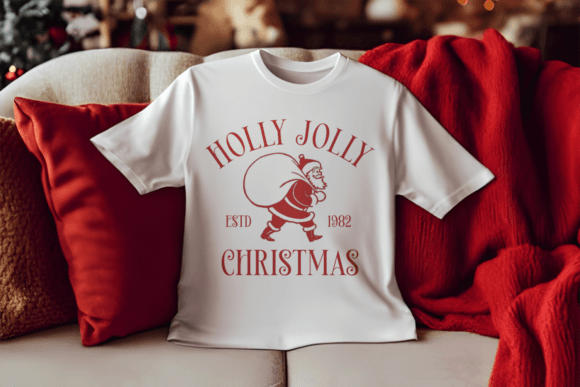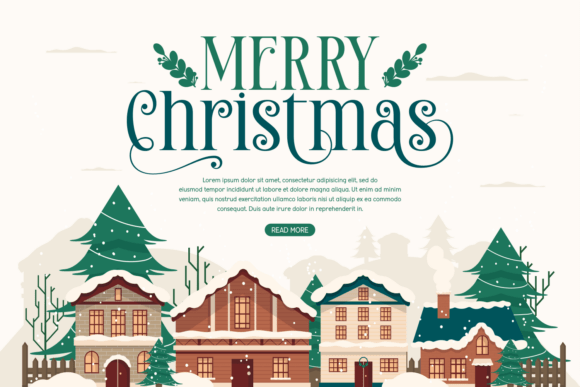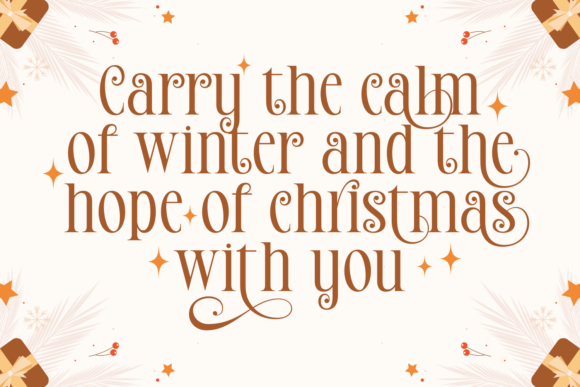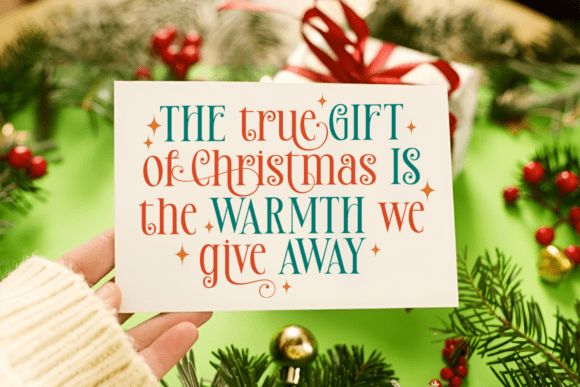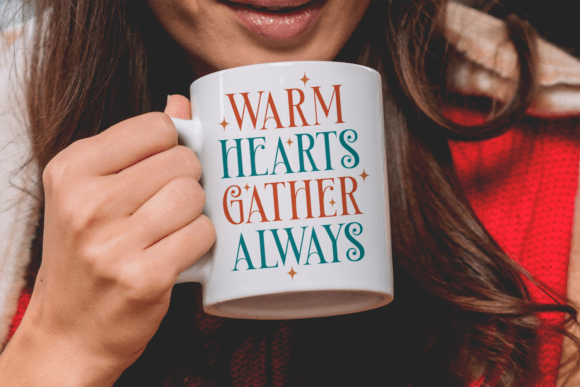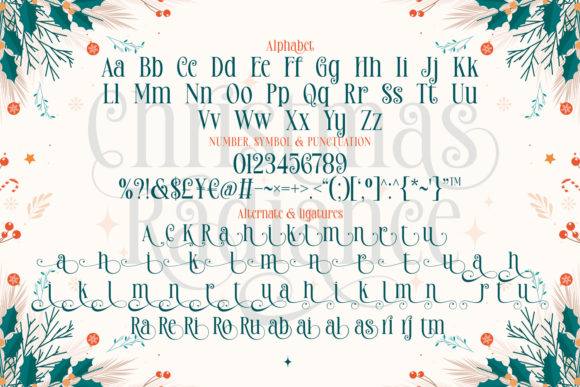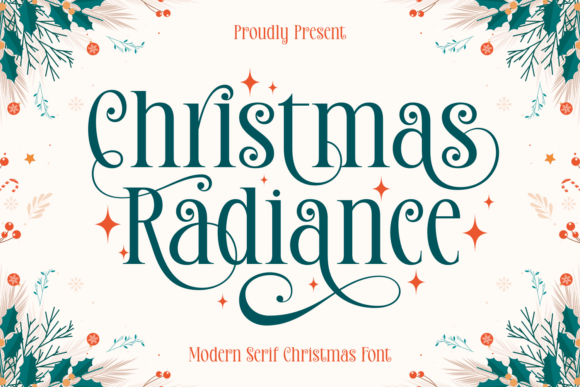
Introducing Christmas Radiance Font: Elevate Your Holiday Designs with Elegance and Cheer
The holiday season is upon us, and with it comes the desire to create captivating and festive designs that embody the spirit of Christmas. Whether you’re a designer, crafter, or simply someone who loves the magic of the season, having the right typography can make all the difference. That’s where Christmas Radiance comes in—a modern serif Christmas font designed to infuse your projects with elegance, charm, and a warm festive glow.
A Modern Twist on Classic Christmas Elegance
Christmas Radiance is more than just a font; it’s an experience. Crafted with precision and a deep understanding of what makes the holiday season special, this font combines the best of traditional serif elements with a fresh, modern approach. The result is a typeface that feels both nostalgic and contemporary, perfect for those who want to stand out in a crowded design landscape.
One of the standout features of Christmas Radiance is its graceful swashes and stylish curves. These elements add a fluid, dynamic quality to your text, making it perfect for headlines, titles, and any design where you want to make a statement. The classic serif details ensure that the font remains grounded and sophisticated, preventing it from feeling too whimsical or over-the-top.
Perfect for a Wide Range of Holiday Projects
Christmas Radiance is incredibly versatile, making it suitable for a wide array of design projects. Here are some ideas to get you started:
- Holiday Cards and Invitations: Create stunning Christmas cards, invitations, and save-the-date announcements that set the tone for your holiday celebrations.
- Seasonal Branding: Elevate your holiday branding with a font that exudes warmth and sophistication. Use Christmas Radiance for logos, packaging, and promotional materials to create a cohesive and festive look.
- Decorative Quotes and Graphics: Add a touch of elegance to your holiday quotes and graphics. Christmas Radiance’s refined letterforms and ornamental accents make it perfect for creating shareable social media content.
- Packaging: Whether you’re designing labels for holiday gifts, cookies, or other seasonal products, Christmas Radiance can help your packaging stand out.
- Social Media Posts: Make your holiday social media posts shine with a font that captures the essence of the season. From Facebook to Instagram, Twitter to Pinterest, Christmas Radiance will ensure your content looks festive and refined.
- Gift Tags and Labels: Add a personal touch to your gifts with beautifully designed tags and labels. Christmas Radiance’s intricate details and elegant style make it perfect for this purpose.
Why Choose Christmas Radiance?
So, what sets Christmas Radiance apart from other holiday fonts? Here are a few reasons why designers and crafters are falling in love with this beautiful typeface:
- Luxurious and Joyful Feel: Christmas Radiance strikes the perfect balance between sophistication and festive cheer. Its sparkling ornamental accents and refined letterforms add a touch of luxury to any design.
- Easy to Use: Despite its intricate details, Christmas Radiance is surprisingly easy to use. Whether you’re a seasoned designer or a beginner, you’ll find that this font integrates seamlessly into your workflow.
- Versatile: From formal to casual, Christmas Radiance adapts to any design style. Use it for everything from high-end branding to DIY craft projects.
Tips for Using Christmas Radiance
To get the most out of Christmas Radiance, here are a few tips:
- Experiment with Swashes: Don’t be afraid to play around with the swashes and flourishes that come with Christmas Radiance. They can add a unique touch to your designs and help you create something truly one-of-a-kind.
- Mix and Match: Combine Christmas Radiance with other fonts to create interesting contrasts. For example, pair it with a simple sans serif for a headline or use it alongside a script font for added visual interest.
- Pay Attention to Color: The right color scheme can enhance the elegance of Christmas Radiance. Consider traditional holiday colors like red, green, and gold, or go for a more modern look with icy blues and silvers.
| Font Name | Christmas Radiance Font |
| Author | Dani (7NTypes) |
Christmas Radiance is more than just a font—it’s a tool for bringing your holiday designs to life. With its elegant serif details, graceful swashes, and modern charm, it’s the perfect choice for anyone looking to create beautiful, festive designs. Whether you’re working on holiday cards, seasonal branding, or simply want to add some cheer to your social media posts, Christmas Radiance is sure to deliver.